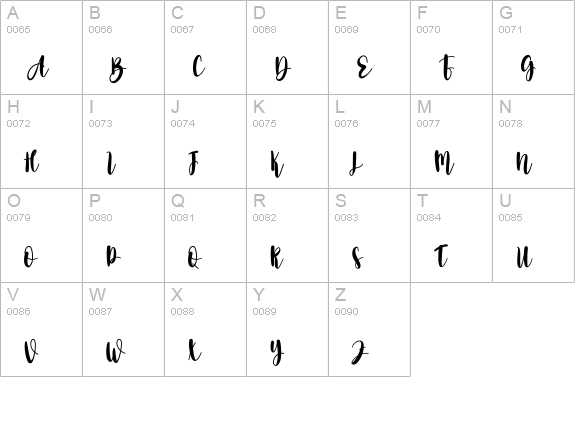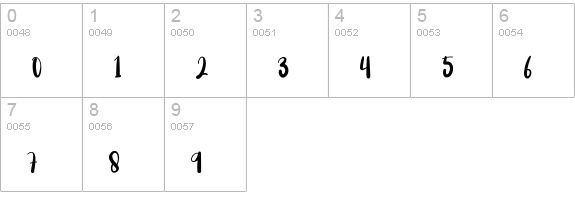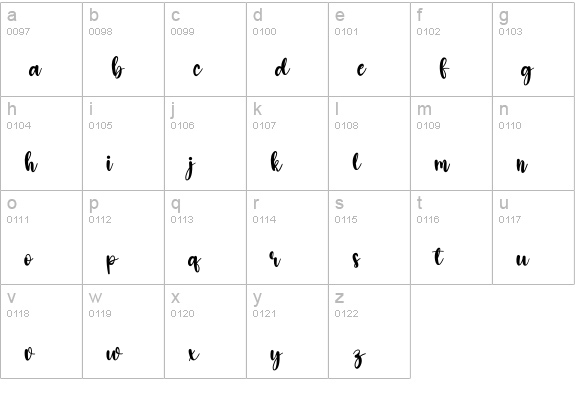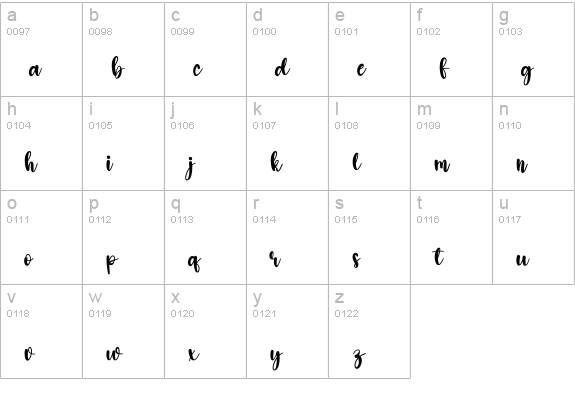
Amellia is a free for personal use font in the Script > Handwritten category, designed by scratchones. It has been downloaded 8 times and is available for Windows, Mac and Linux.
Amellia font is a beautifully crafted typeface that exudes elegance and sophistication. Its graceful curves and stylish details make it perfect for a wide range of design projects, from wedding invitations to branding materials. The Amellia font is not only visually stunning but also highly versatile, making it a must-have for any designer looking to add a touch of class to their work.